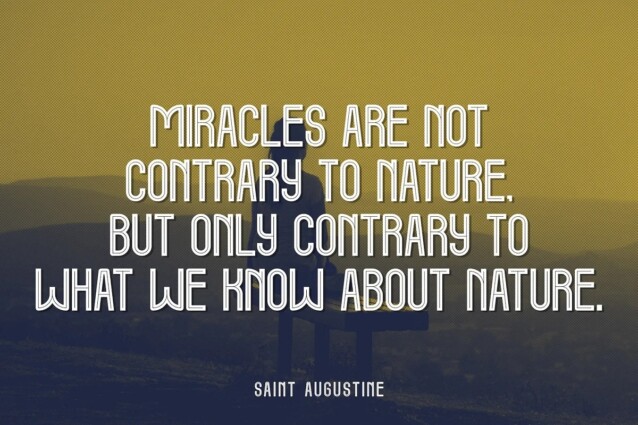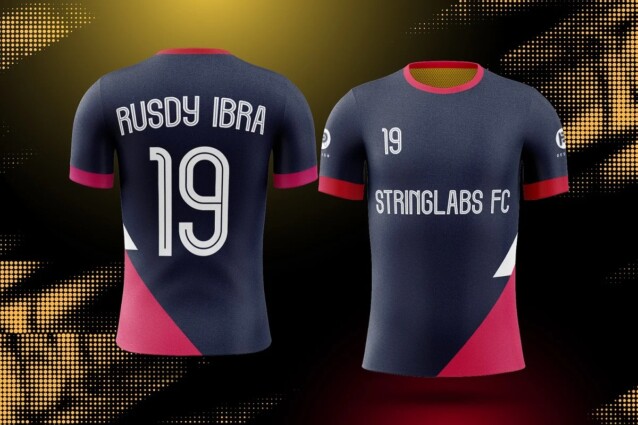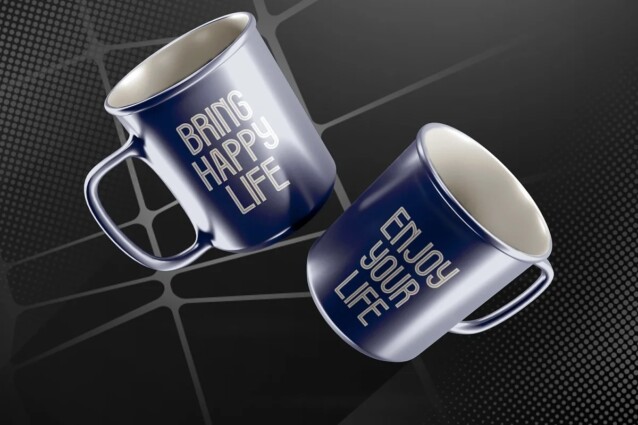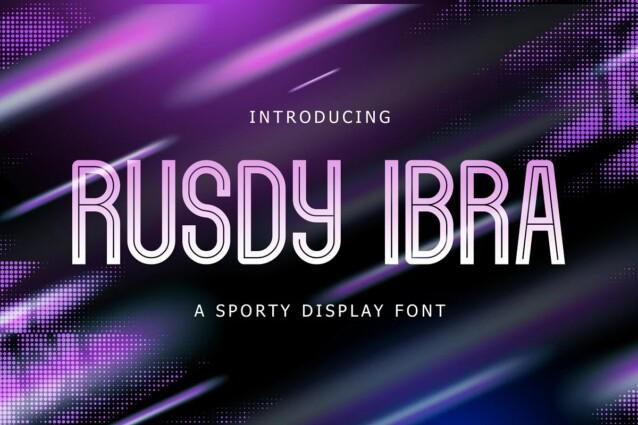
Rusdy Ibra Font
Rusdy Ibra Font is a condensed sans-serif typeface, inspired by college sports and football (soccer) jerseys. This playfully conceptual typeface font will look truly outstanding in a wide range of contexts. This font is very suitable for your any sports needs.